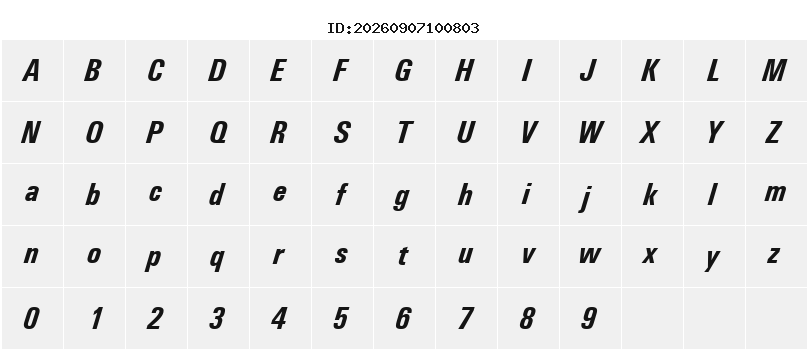
Univers Condensed Preview
• Font Name: Univers Condensed
• Font Style: Gras Italique
• Font ID: Hewlett-Packard: Univers Condensed Bold Italic: Version 1.3 (Hewlett-Packard)
• Full Font Name: Univers Condensed Gras Italique
• Version: Version 1.3 (Hewlett-Packard)
• PostScript Name: Univers-Condensed-BoldItalic
About Univers Condensed.ttf
Univers Condensed.ttf is a modern, elegant sans-serif font designed for ultimate readability and visual harmony. Perfect for branding, headlines, web design, and print materials.